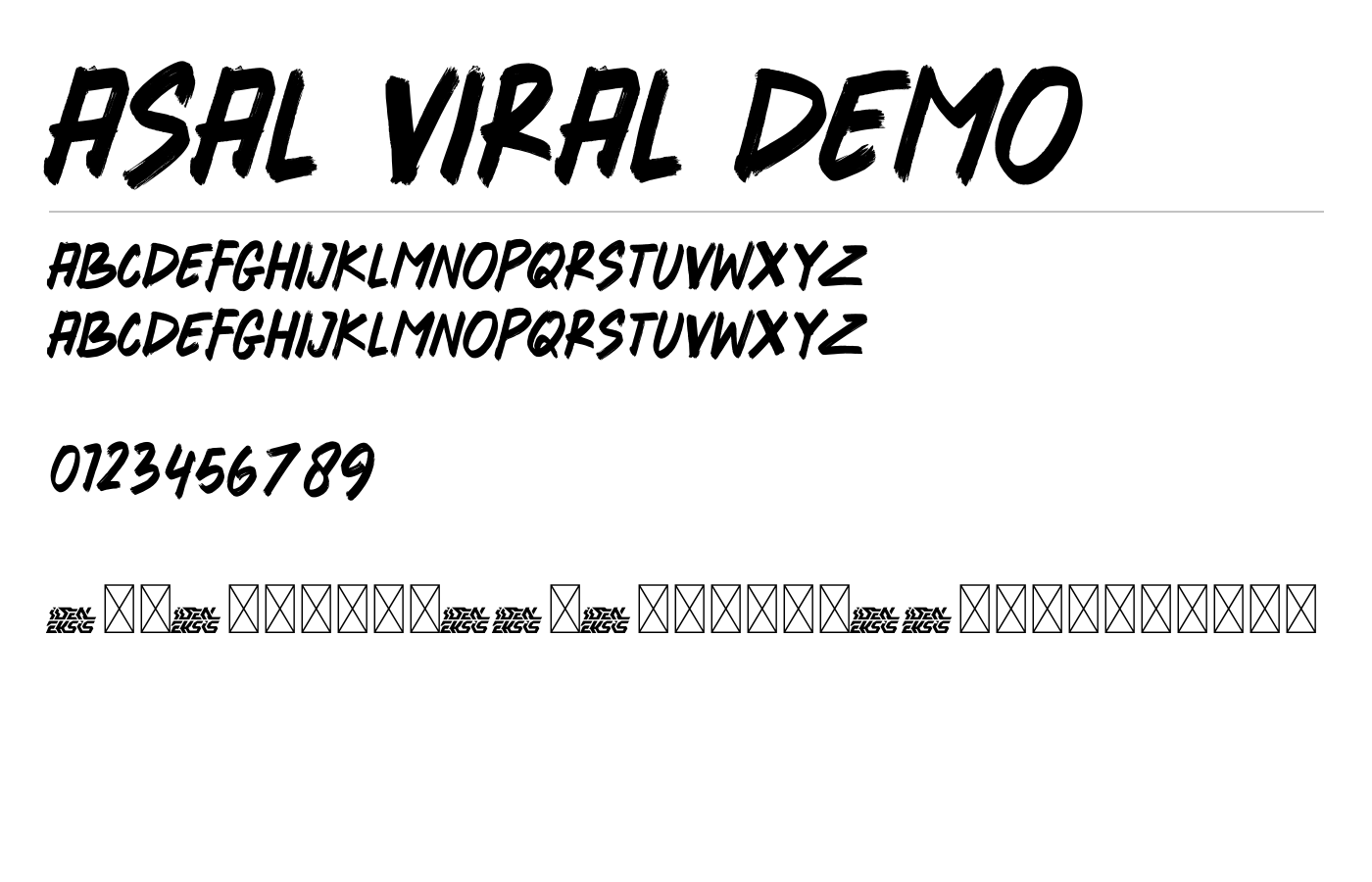
Asal Viral Demo is a dynamic, hand-brushed sans serif font that exudes energy and spontaneity. Its bold, slightly condensed letterforms with rough, textured edges create a natural, casual feel, making it perfect for youthful, creative designs that need a strong, informal voice. This font works especially well in headlines, logos, and social media graphics where a lively, attention-grabbing style is desired.
Asal Viral Demo Font
About Asal Viral Demo Font
| Font family | Asal Viral Demo Font |